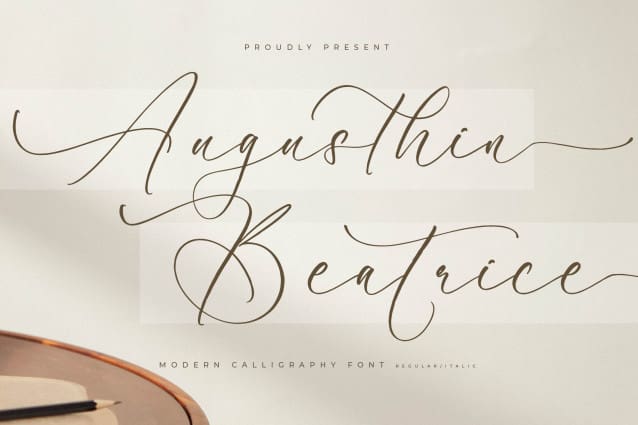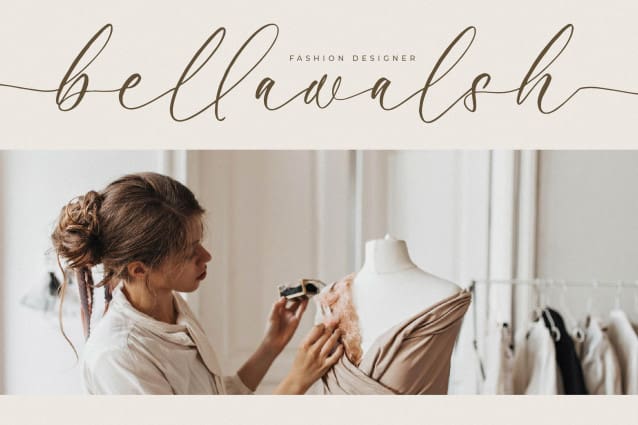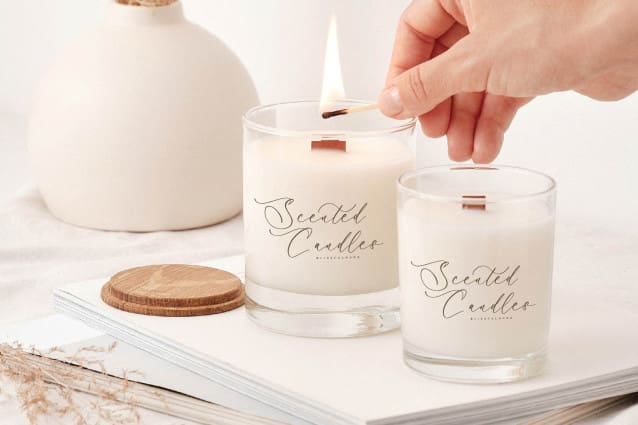
Augusthin Beatrice Font
Augusthin Beatrice Font – Modern Calligraphy Font, from Letterena, is a Luxury Script font, suitable for any projects such as: logos, branding projects, homeware designs, product packaging, mugs, quotes, posters, shopping bags, t-shirts, book covers, name card, invitation cards, greeting cards, label, photography, watermark, special events, and all your other luxury and beautiful projects that need a Luxury serif taste.